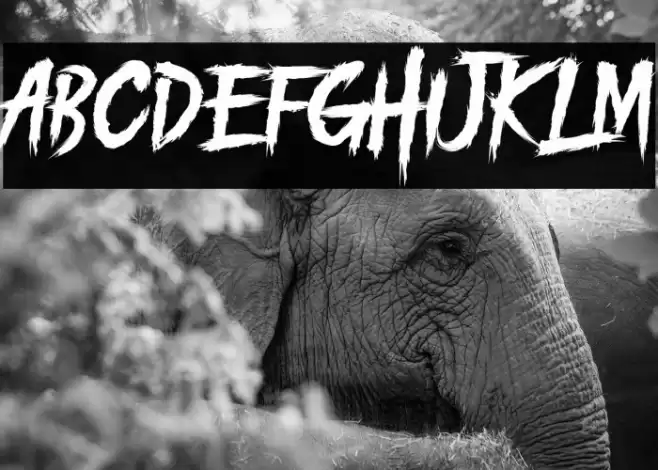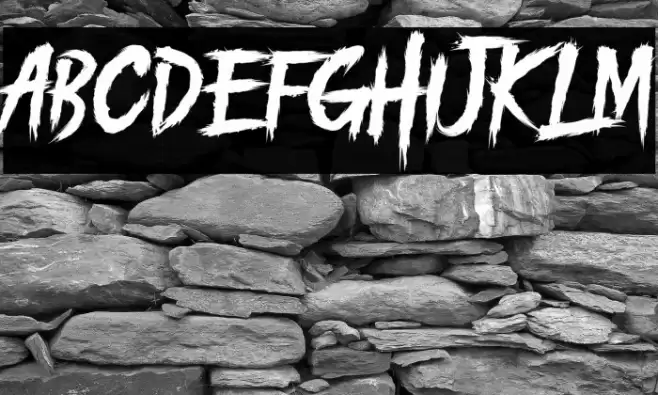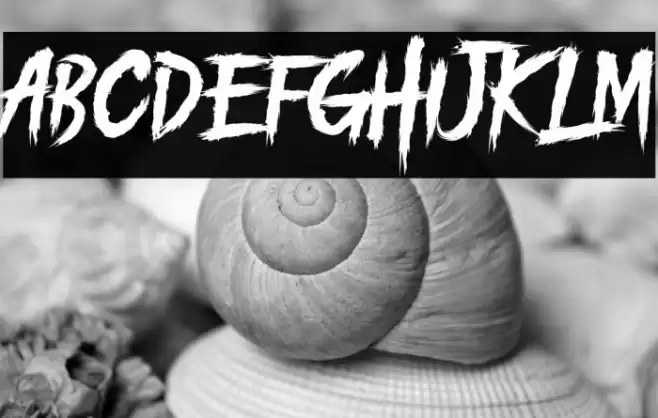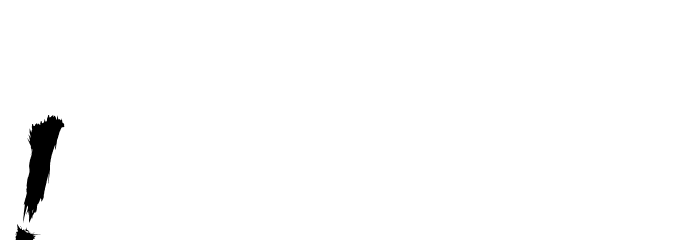
PILITACORE! DEMO Font
PILITACORE! DEMO Description
This font features a bold and aggressive style with a brush-like texture, giving it a dynamic and energetic appearance. The strokes are uneven and jagged, creating a sense of movement and intensity. The uppercase letters are particularly striking, with sharp angles and a slightly chaotic feel. The font's design is reminiscent of graffiti or street art, making it ideal for projects that require a bold and unconventional look. The characters are closely spaced, enhancing the compact and powerful aesthetic. Overall, this font exudes a sense of rebellion and creativity, perfect for making a strong visual impact.
A bold, brush-style font with a dynamic and energetic appearance from Uncategorized fonts.
- Font: PILITACORE! DEMO
- Proposed Projects: Ideal for posters, album covers, streetwear branding, and any project needing a bold, artistic touch.
- Character Spacing: Tight